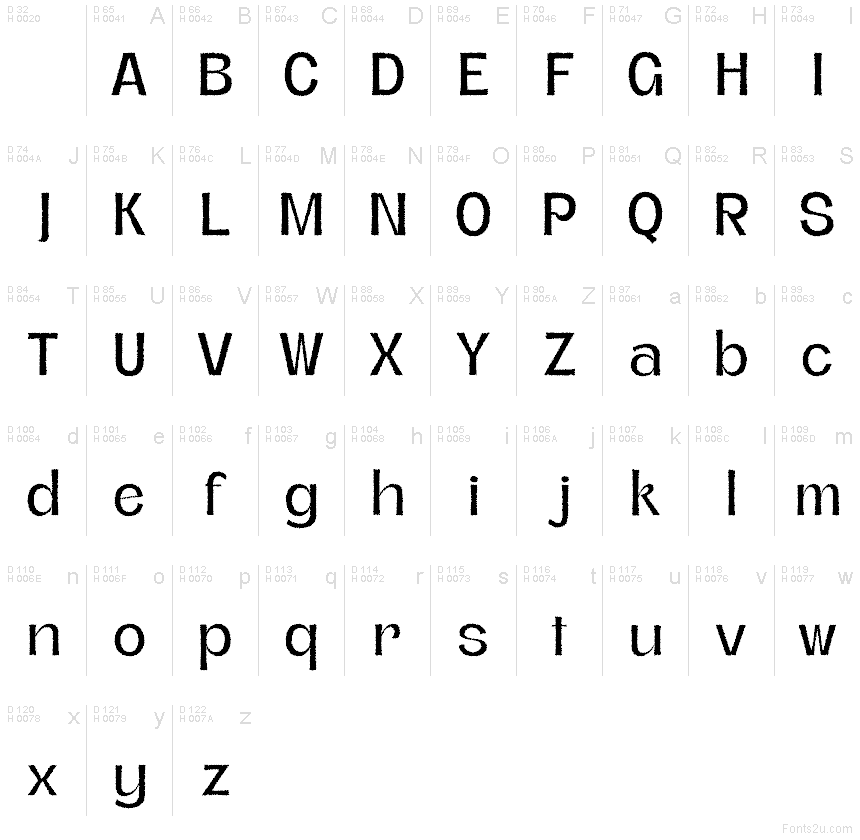
Regarn Rough Regular Demo
Regarn Rough font from Craft Supply Co. is a casually styled free display font with stunning irregular edges and tactile textural elements. Each letter in this eroded textured bundle has an organic feel that provides a beautiful handcrafted aesthetic with a contemporary flair for modern design projects.
Use Regarn Rough to visualize poster titles, create magazine covers, decorate badges, construct labels or craft striking branding presentations. Marketing materials like unusual business cards, brochures, flyers, and product packaging designs can also be visualized beautifully using this display gem.